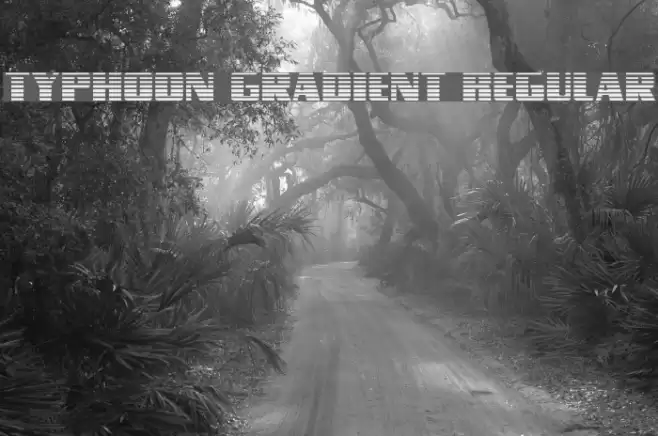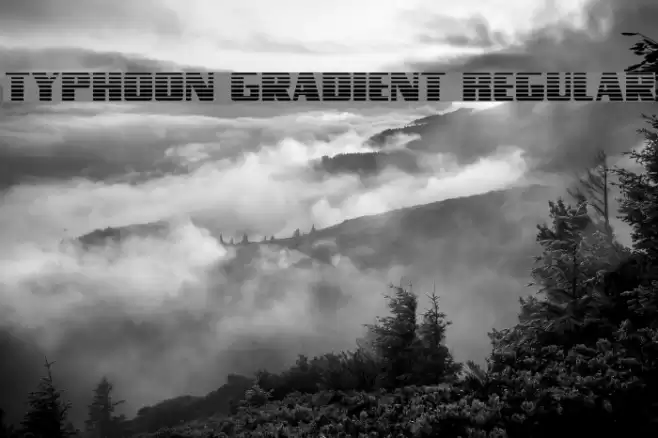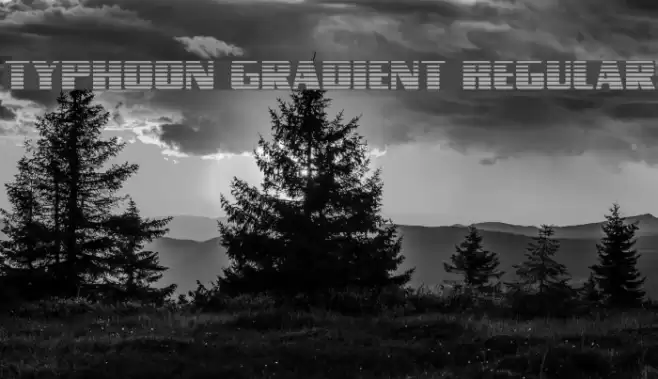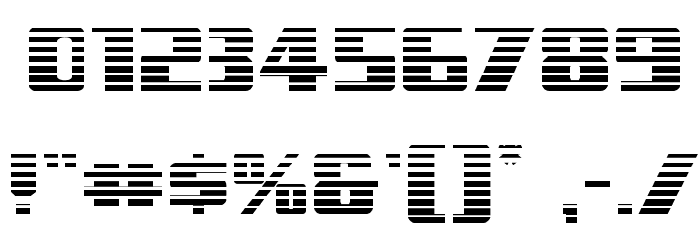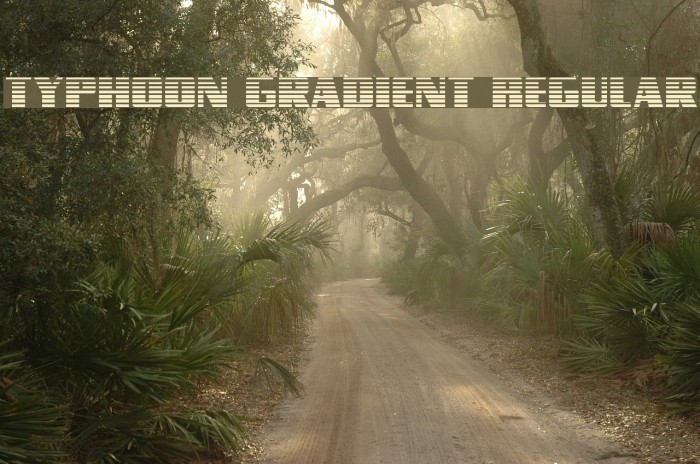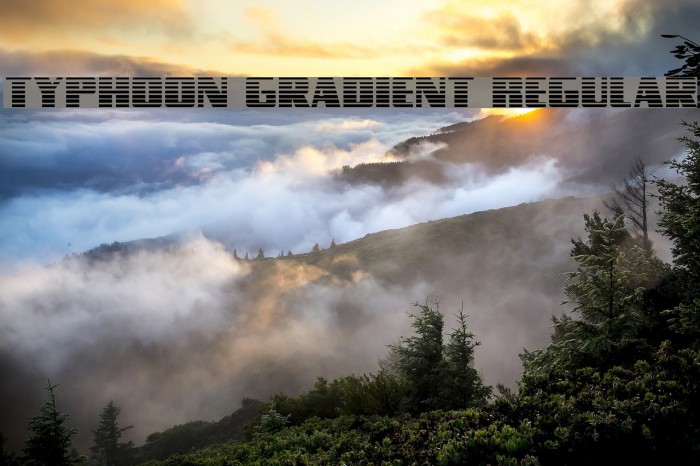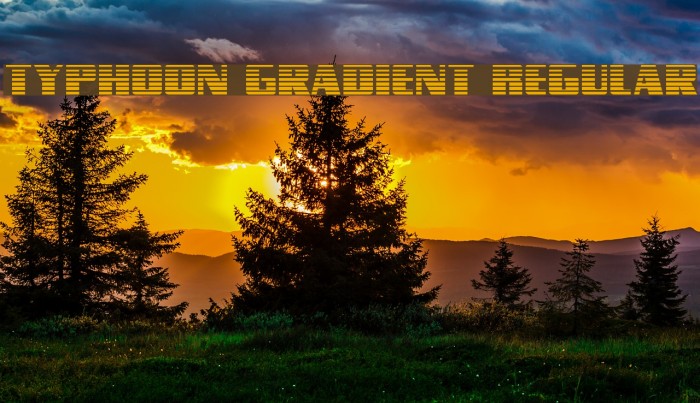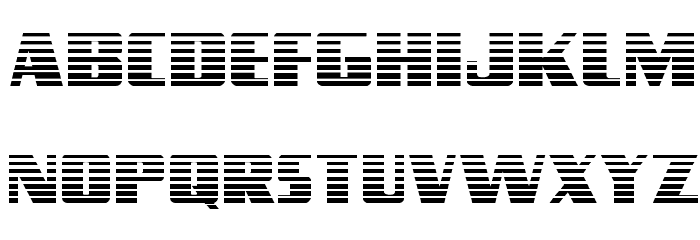
Typhoon Gradient Regular Font
Typhoon Gradient Regular Description
This font features a unique gradient stripe design that gives it a modern and dynamic appearance. Each character is composed of horizontal lines that create a sense of movement and energy. The uppercase and lowercase letters maintain a consistent style, with the lines varying in thickness to form each character. Numbers and special characters follow the same pattern, ensuring uniformity across the font. The overall look is bold and eye-catching, making it suitable for projects that require a strong visual impact.
A modern, striped font with a dynamic gradient effect from Thick fonts.
- Proposed Projects: Ideal for futuristic designs, tech branding, posters, and digital media projects.